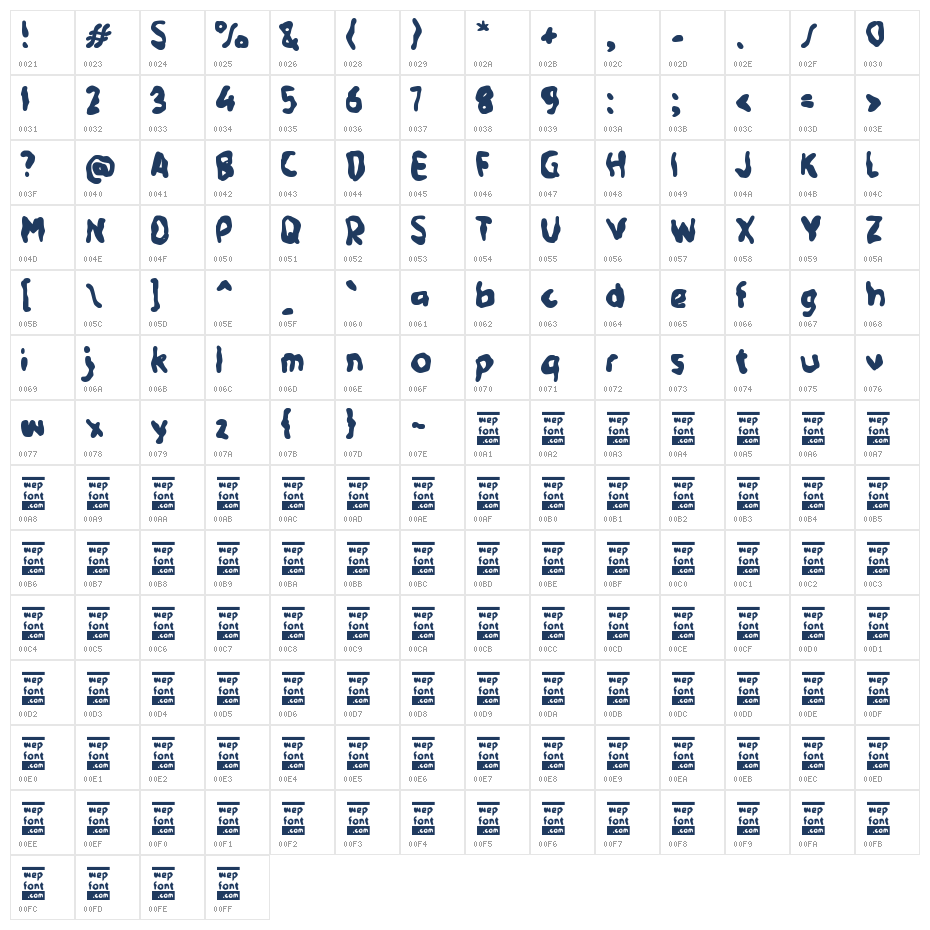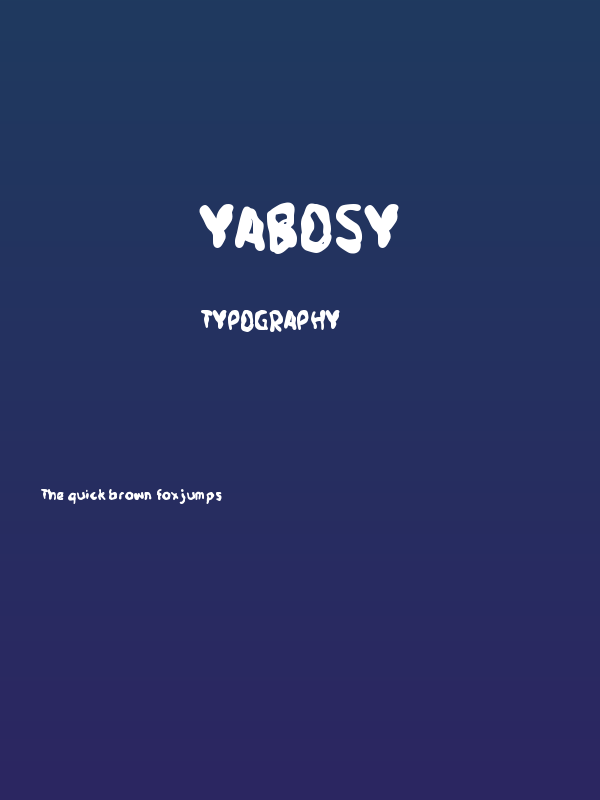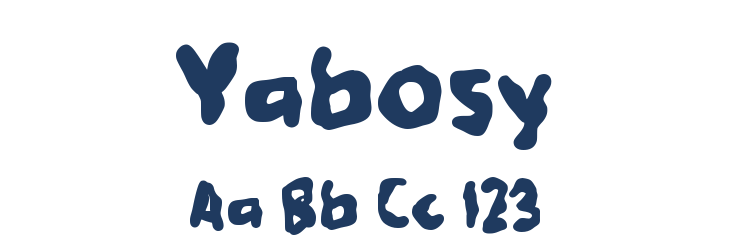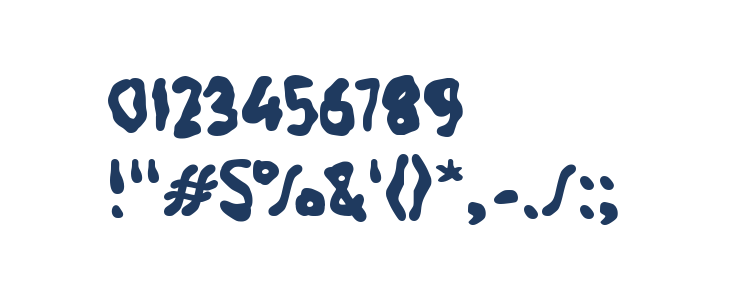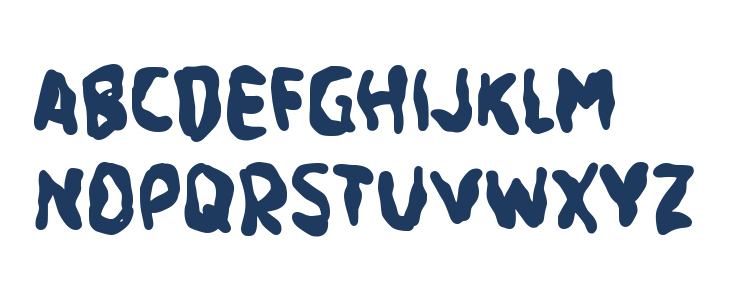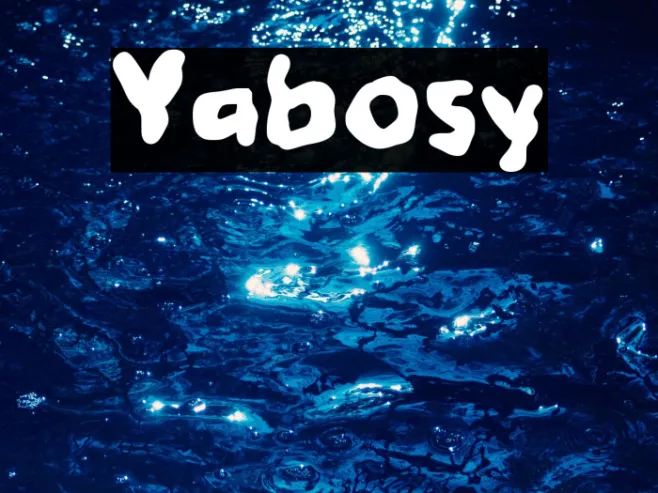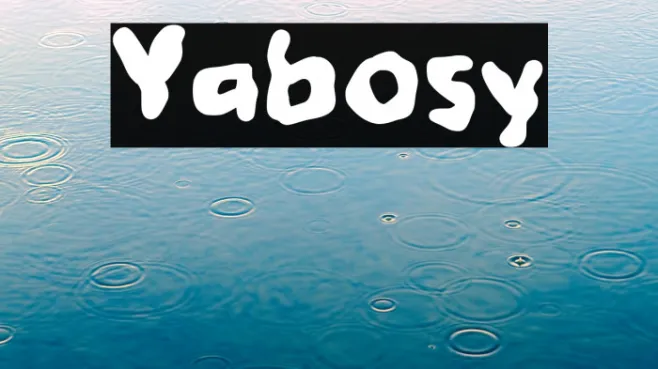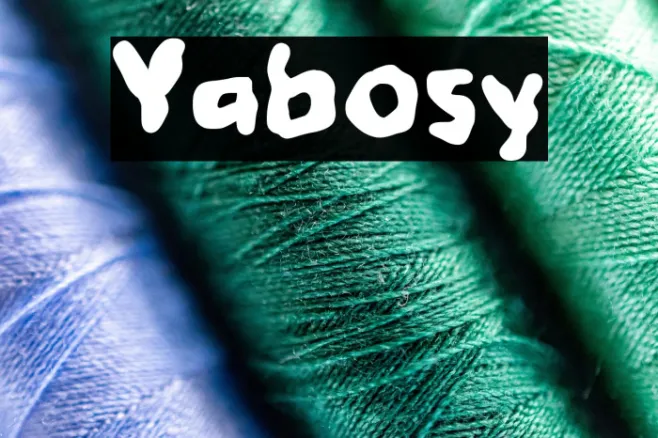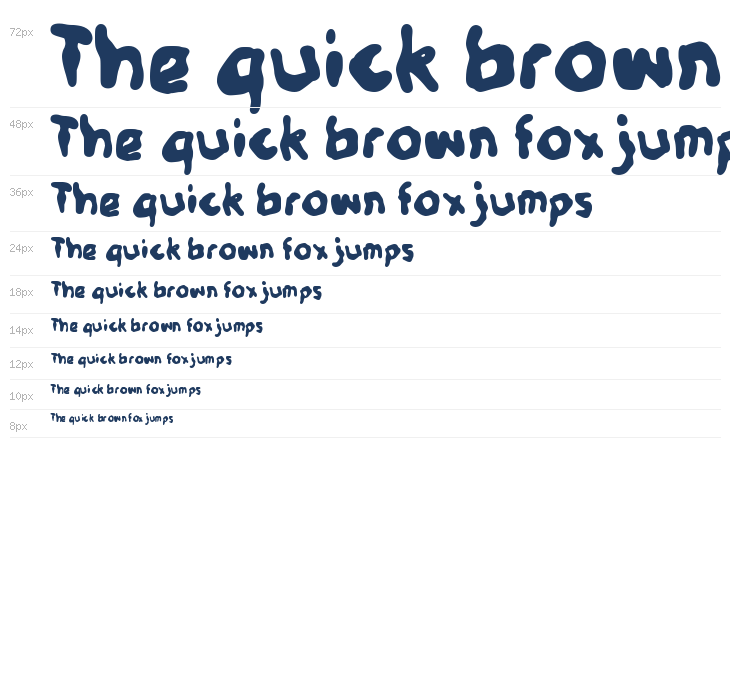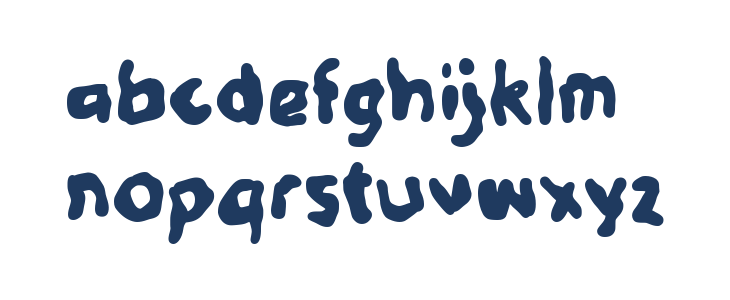
Yabosy Font
Yabosy Description
A playful, bold, and irregular handwritten style font with a casual and informal appearance.
| Use Case | Headlines, Posters, Children's materials, Creative branding |